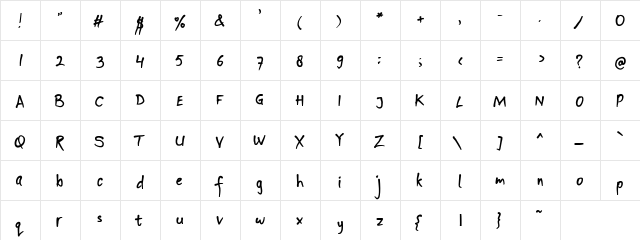
Tictic Play regular
| Foundry | midfont |
| Designer | midfont |
Design Context for Tictic Play Typeface
Tictic Play is a composed and adaptable typeface that performs quietly and consistently across a wide range of design contexts.